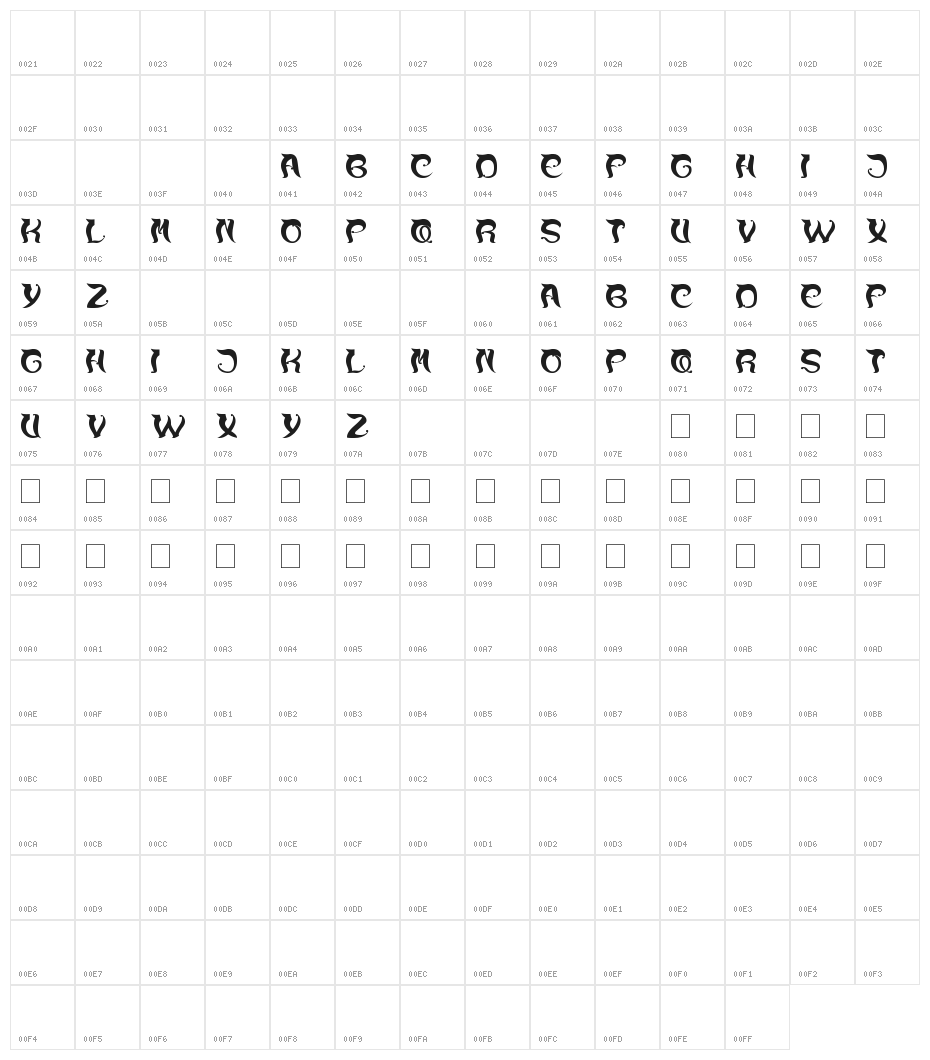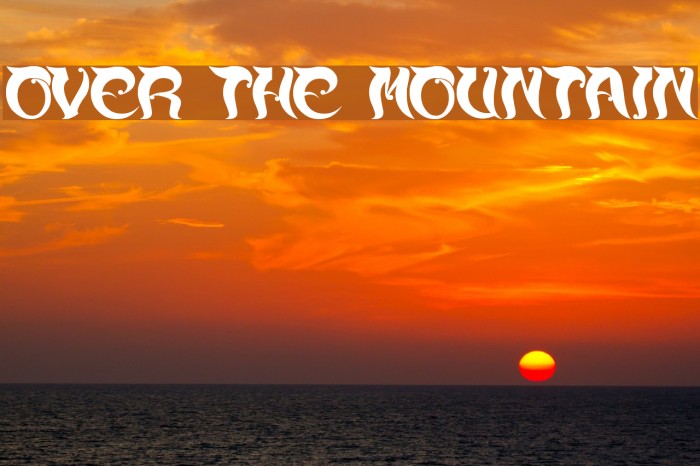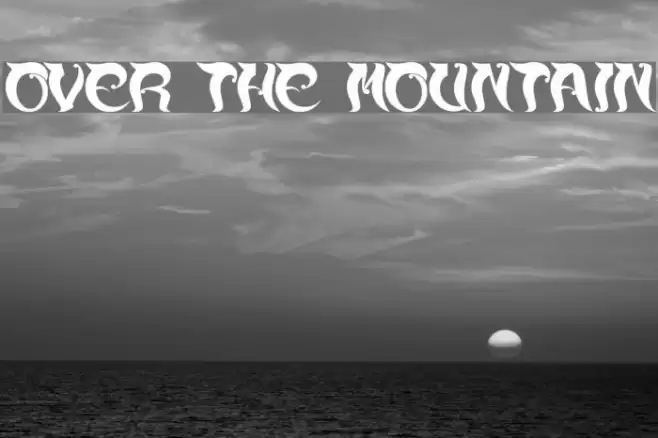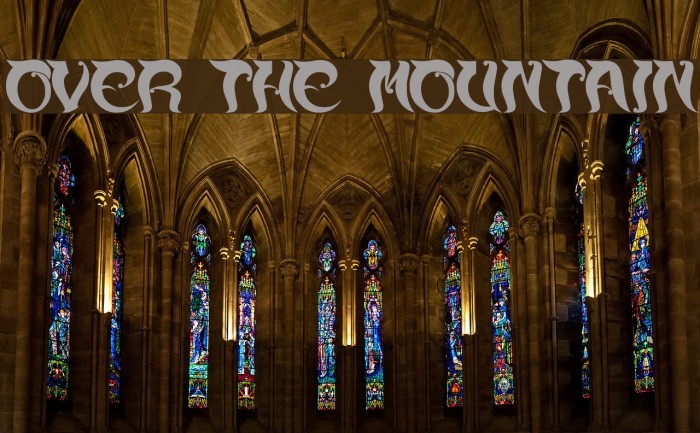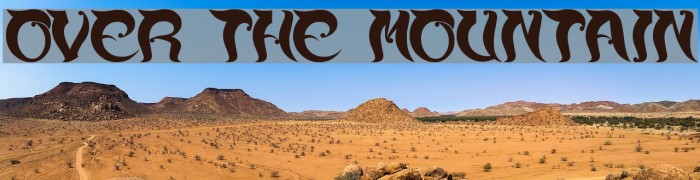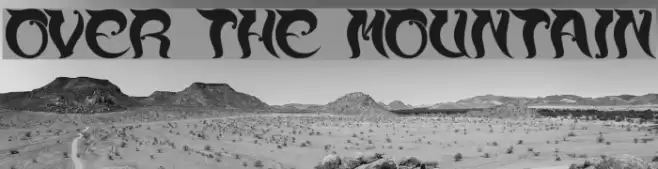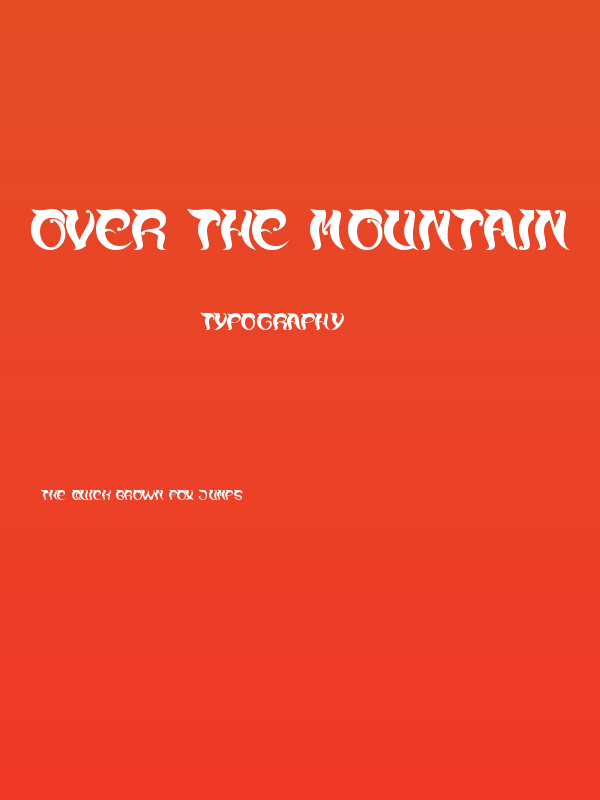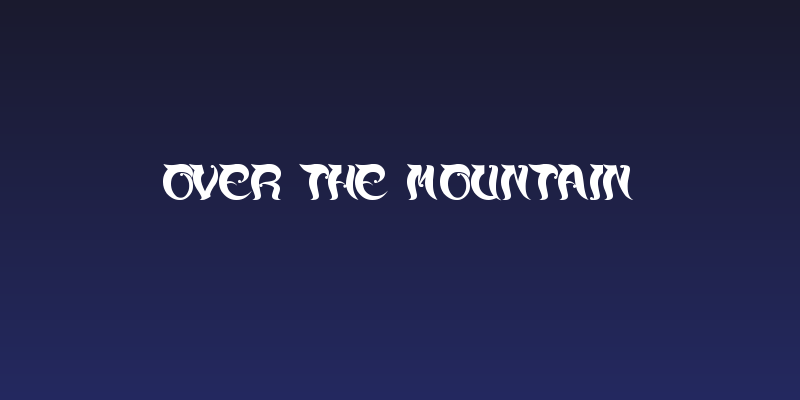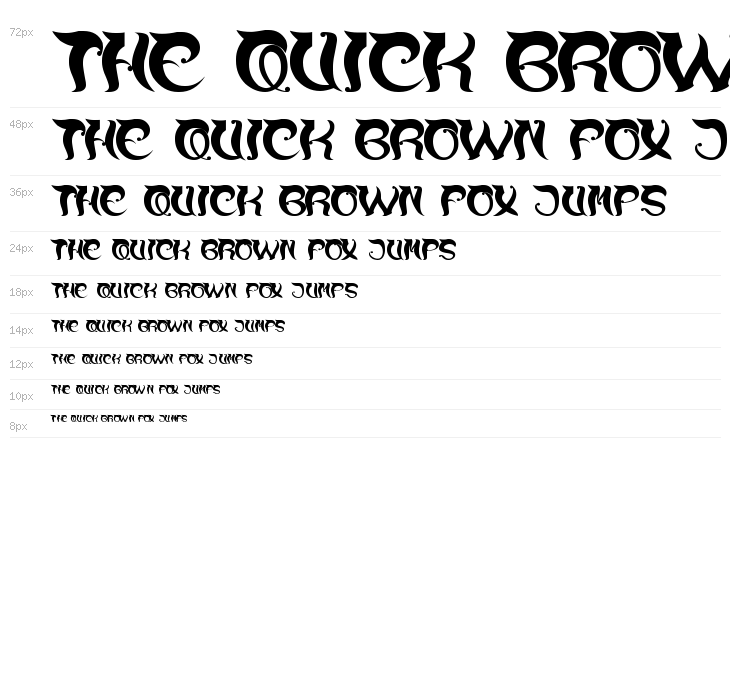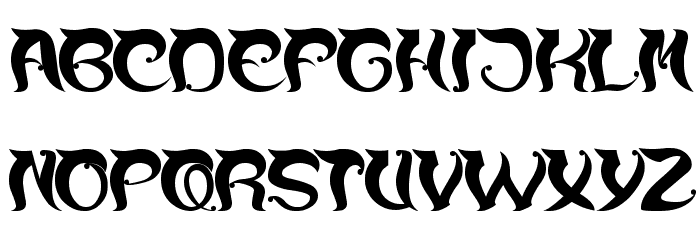
over the mountain Font
over the mountain Description
This font features a bold and decorative style with intricate, swirling details that give it a unique and artistic flair. The characters are highly stylized, with dramatic curves and flourishes that create a sense of movement and elegance. The uppercase letters are particularly elaborate, with some incorporating additional loops and extensions that enhance their visual appeal. The font maintains a consistent weight throughout, ensuring readability despite its ornate design. Its distinctiveness makes it ideal for projects that require a touch of creativity and sophistication.